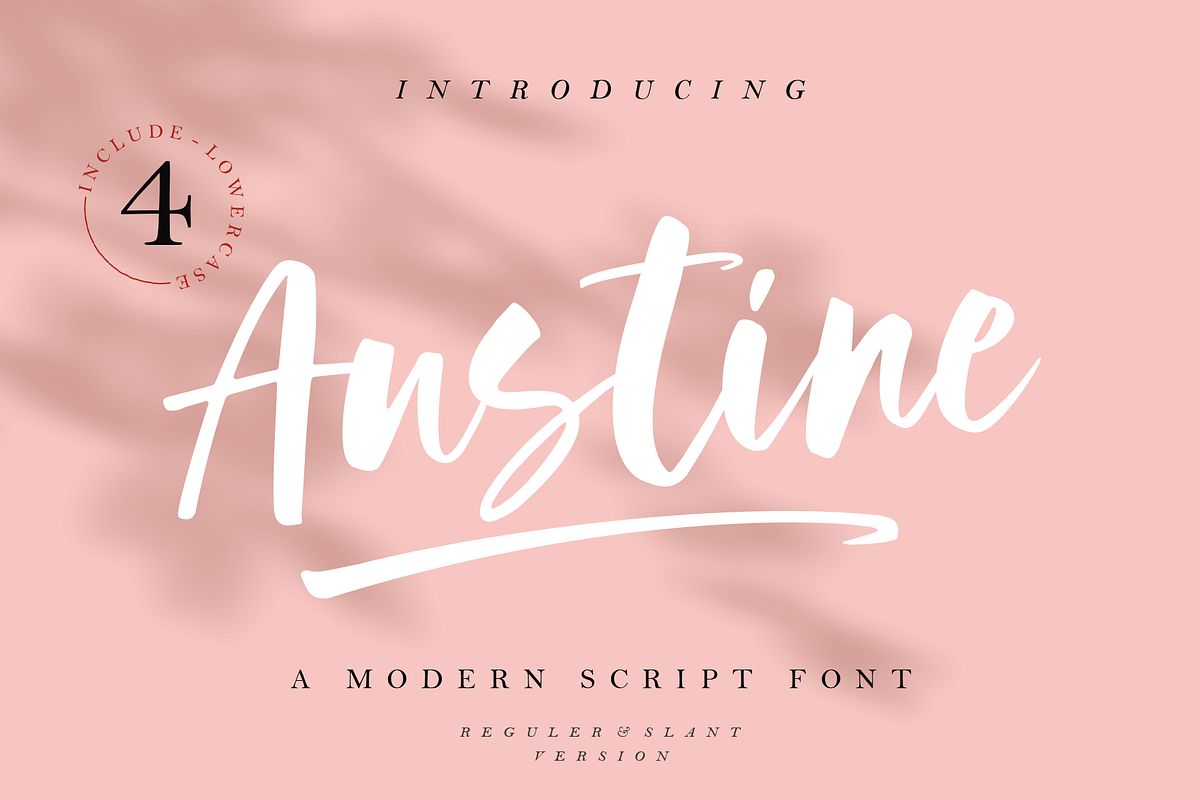
Austine – A Modern Script Font Free Download is a beautifully crafted handwritten typeface that blends contemporary elegance with a personal, flowing style. Ideal for wedding invitations, logos, social media content, beauty branding, and editorial design, Austine adds a sophisticated, modern charm to any project.
Its smooth, delicate strokes and well-balanced letterforms give it a luxurious, high-end feel while maintaining the warmth of hand lettering. With built-in ligatures and stylistic alternates, Austine offers creative flexibility and a signature-quality look.